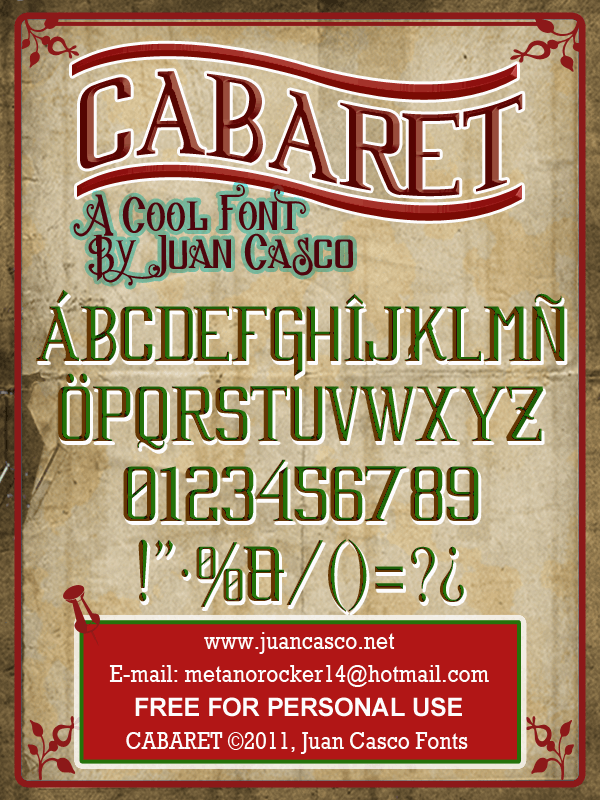
Free Cabaret Font
Take a look at this beautiful free cabaret font. This free typeface file was found from the amazing source called Font Space. This is absolutely beautiful font so you can easily make world-class designs.